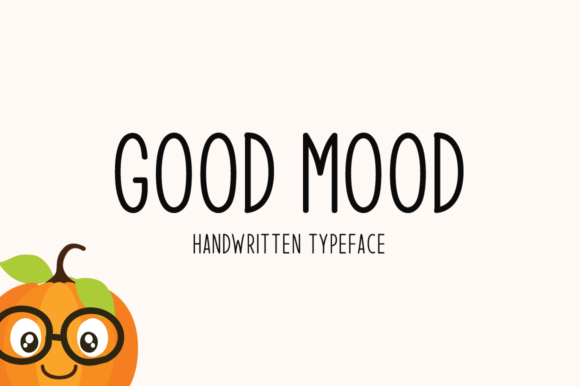
Unlock the Power of Good Mood Font
Enter the Good Mood Font, a simple and natural handwritten font that’s designed to make your designs shine. With its thin and casual lines, this font is the perfect complement to any creative project. Whether you’re working on a blog post, social media campaign, or advertising materials, the Good Mood Font is sure to add a touch of warmth and personality to your work.
As a designer, you know how crucial the right font can be in conveying your message and capturing your audience’s attention. That’s why the Good Mood Font is a valuable addition to any design toolkit. Its versatility and charm make it a go-to choice for creatives who want to bring a little extra joy and personality to their work.
Good Mood Font Key Features
- Font Family: Good Mood Font is a sans-serif typeface designed to evoke a sense of happiness and friendliness.
- Character Set: The font includes a wide range of characters, including Latin, Cyrillic, and Greek alphabets, as well as punctuation and symbols.
- Unique Characteristics: Good Mood Font features a distinctive rounded design with subtle curves and a friendly, approachable feel, making it ideal for use in children’s books, magazines, and other publications where a positive tone is desired.
Designer Review: Good Mood Font
I’ve been playing around with the Good Mood Font, and I have to say, it’s a solid choice for creating a cheerful and approachable atmosphere in your design projects. ✨ Here are some of its strengths:
- Highly legible: The Good Mood Font is designed to be easy on the eyes, making it perfect for body text and longer blocks of content.
- Playful yet professional: The font’s rounded edges and subtle flair give it a friendly feel without sacrificing its professionalism.
- Customizable: With a range of weights and styles to choose from, you can tailor the Good Mood Font to suit your design needs.
However, there are a few limitations to keep in mind: ⚠️
- May not be suitable for formal or serious projects: While the Good Mood Font is great for casual or creative projects, it may not be the best choice for more formal or serious applications.
- Not ideal for small text sizes: Due to its rounded edges and friendly feel, the Good Mood Font may become difficult to read at very small text sizes.
Overall, I think the Good Mood Font is a great addition to any designer’s toolkit. It’s a versatile and engaging font that can add a touch of personality to your designs. Just be sure to use it thoughtfully and in the right context.
The Good Mood Font is ideal for:
1. Creating motivational posters and quotes.
2. Designing uplifting social media graphics.
3. Developing positive affirmations and self-help materials.
4. Creating cheerful greeting cards and invitations.